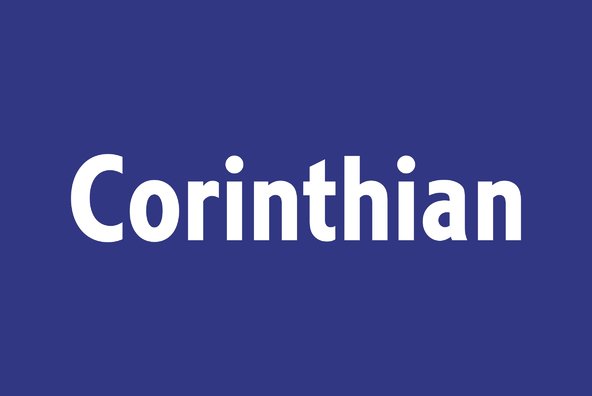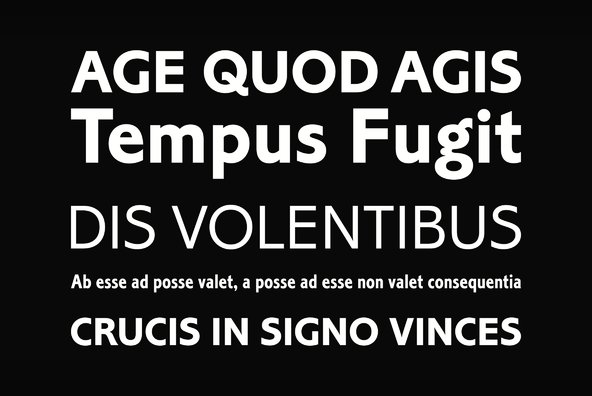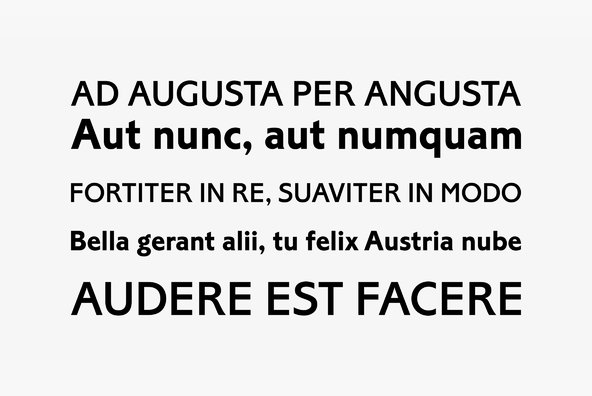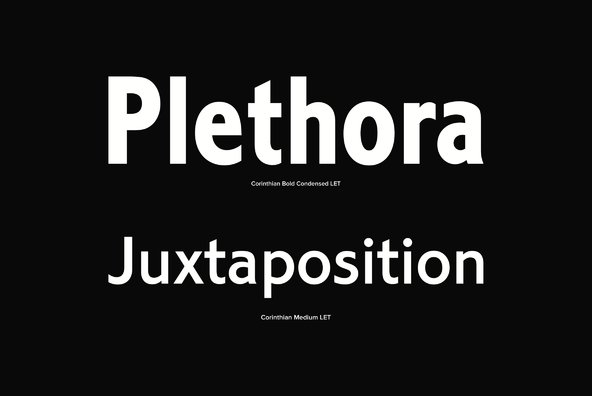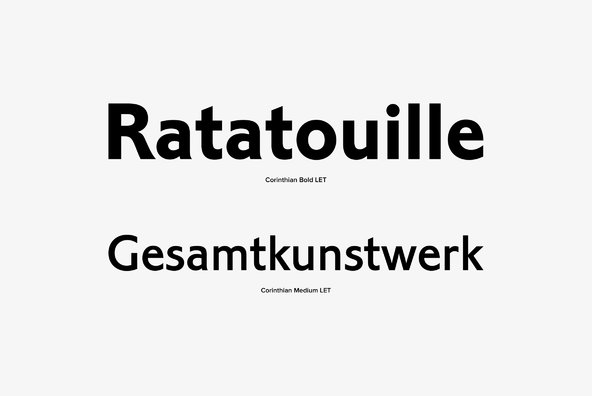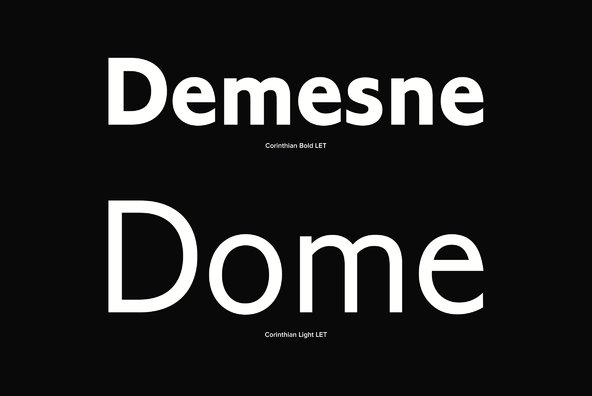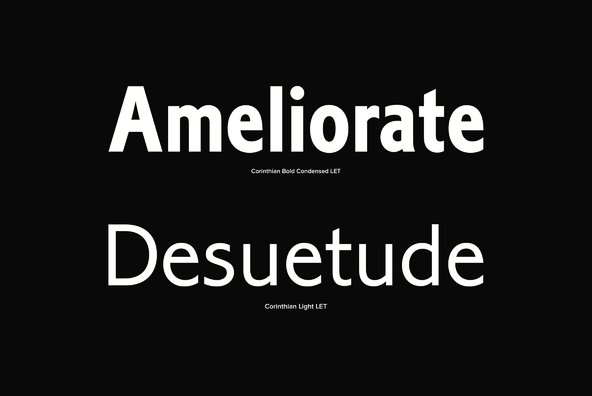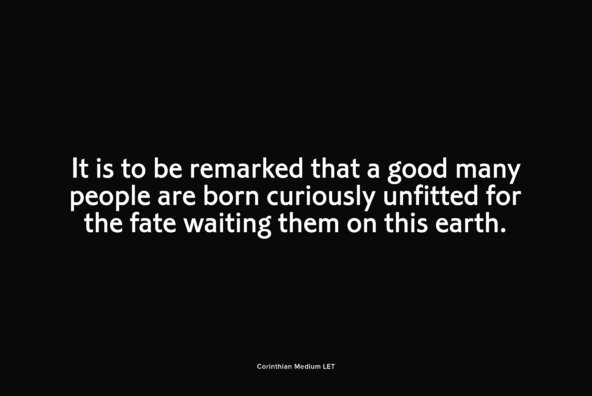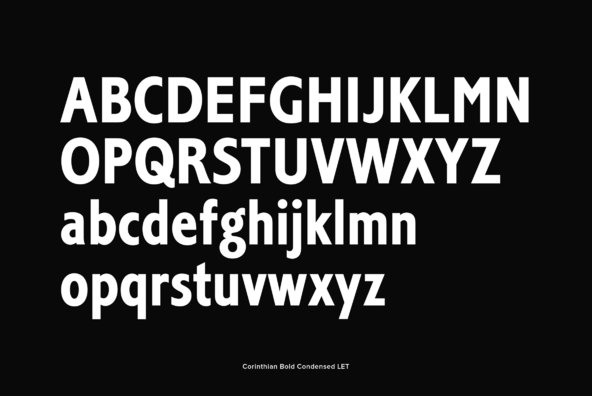
Corinthian
Foundry: Letraset
Created by Type Director Colin Brignall, this clean-cut, monolineal sans serif typeface was inspired by Edward Johnston's Railway Type and Eric Gill's Gill Sans typefaces. Corinthian Light is very legible making it suitable for widespread use in both small text and large display sizes.